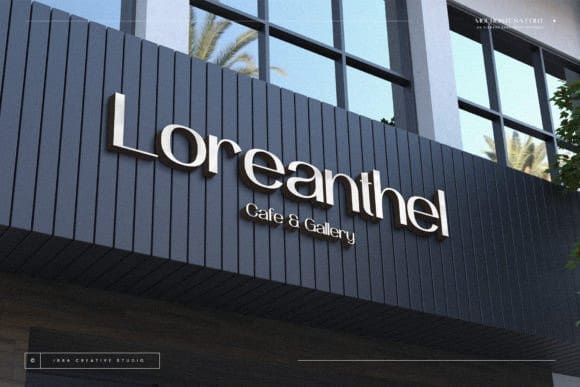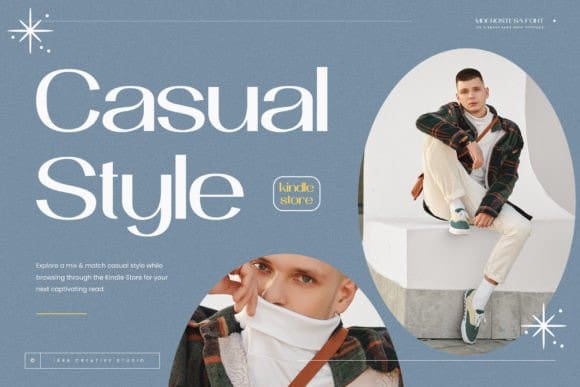
Moerostesa Font
Moerostesa Font, an elegant sans-serif typeface, embodies sophistication and refinement in its graceful design. With clean lines and subtle curves, each letter exudes a timeless charm that seamlessly blends modernity with classic aesthetics. The balanced proportions and delicate strokes of Moerostesa lend an air of understated elegance to any typographic composition, making it a versatile choice for a wide range of design projects.